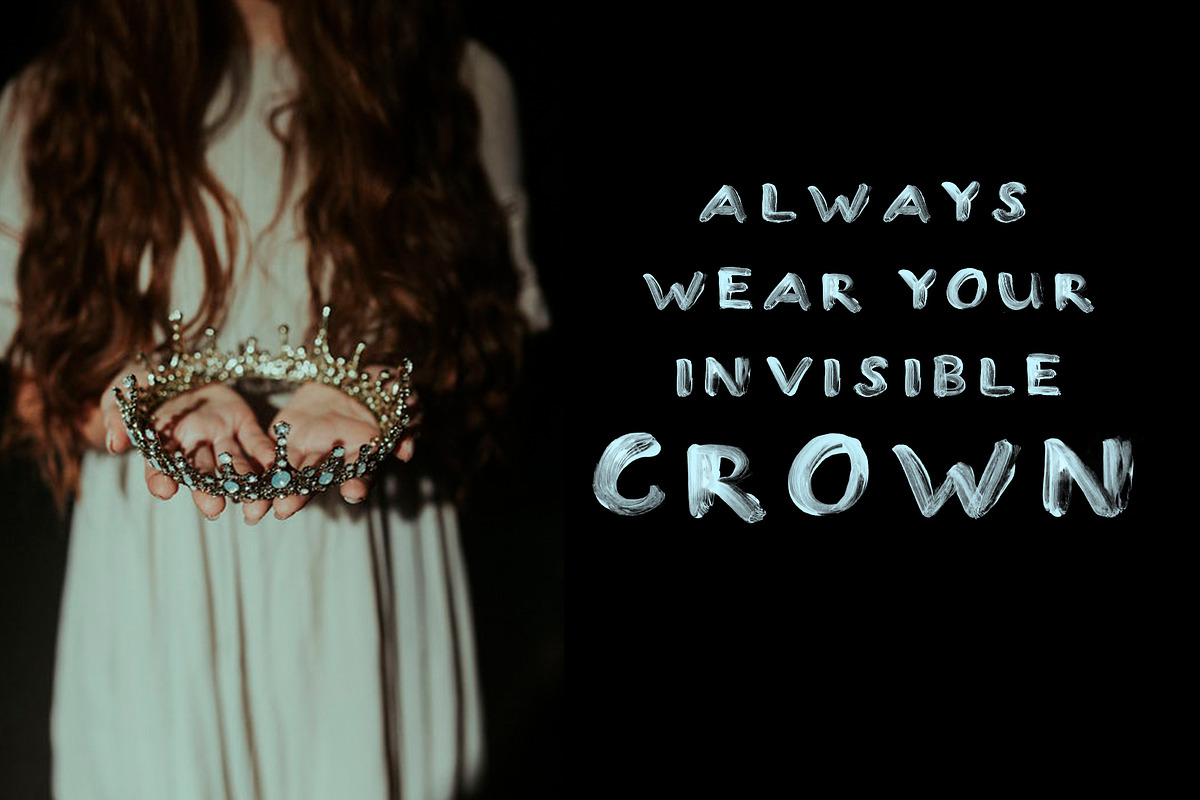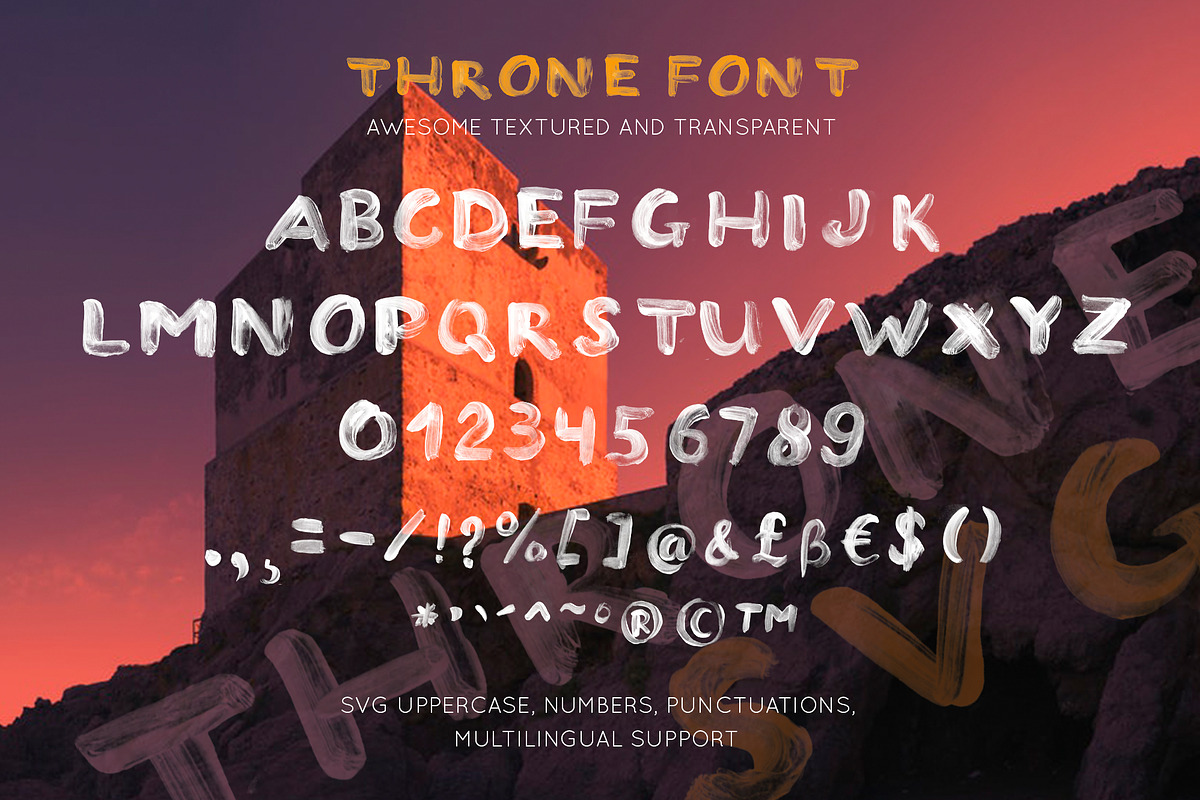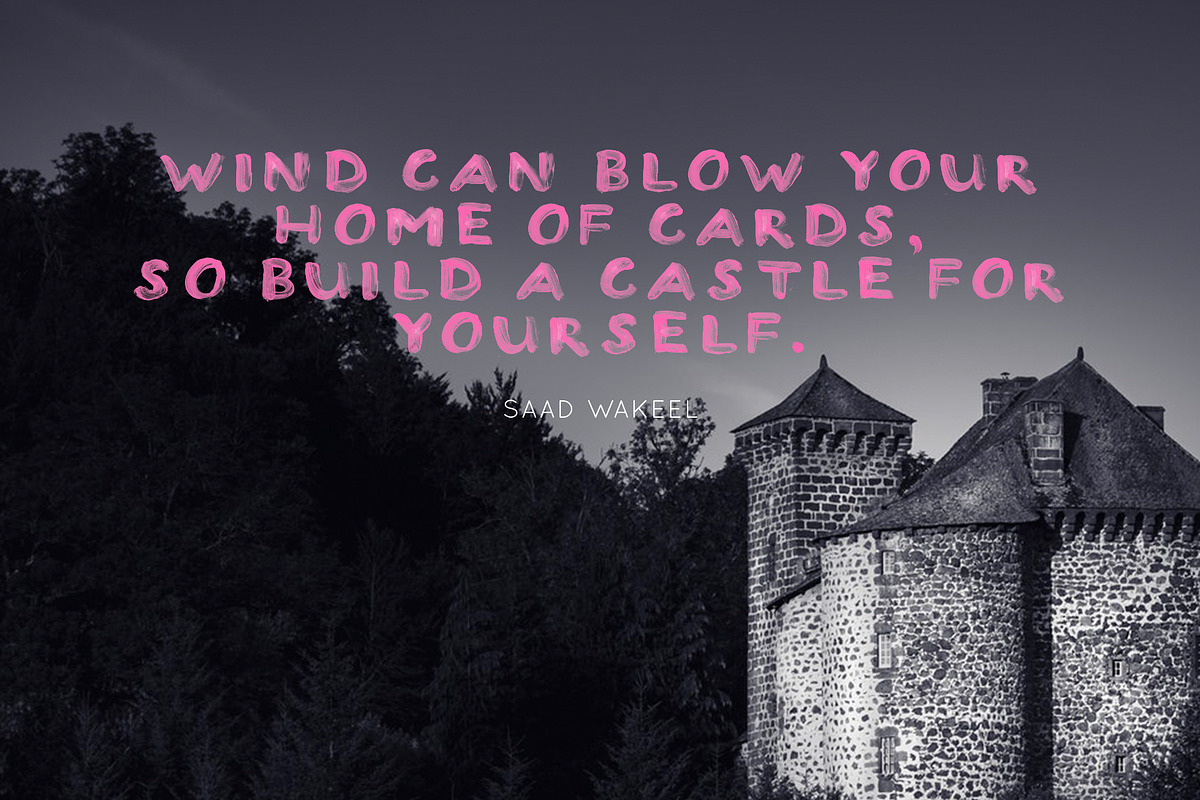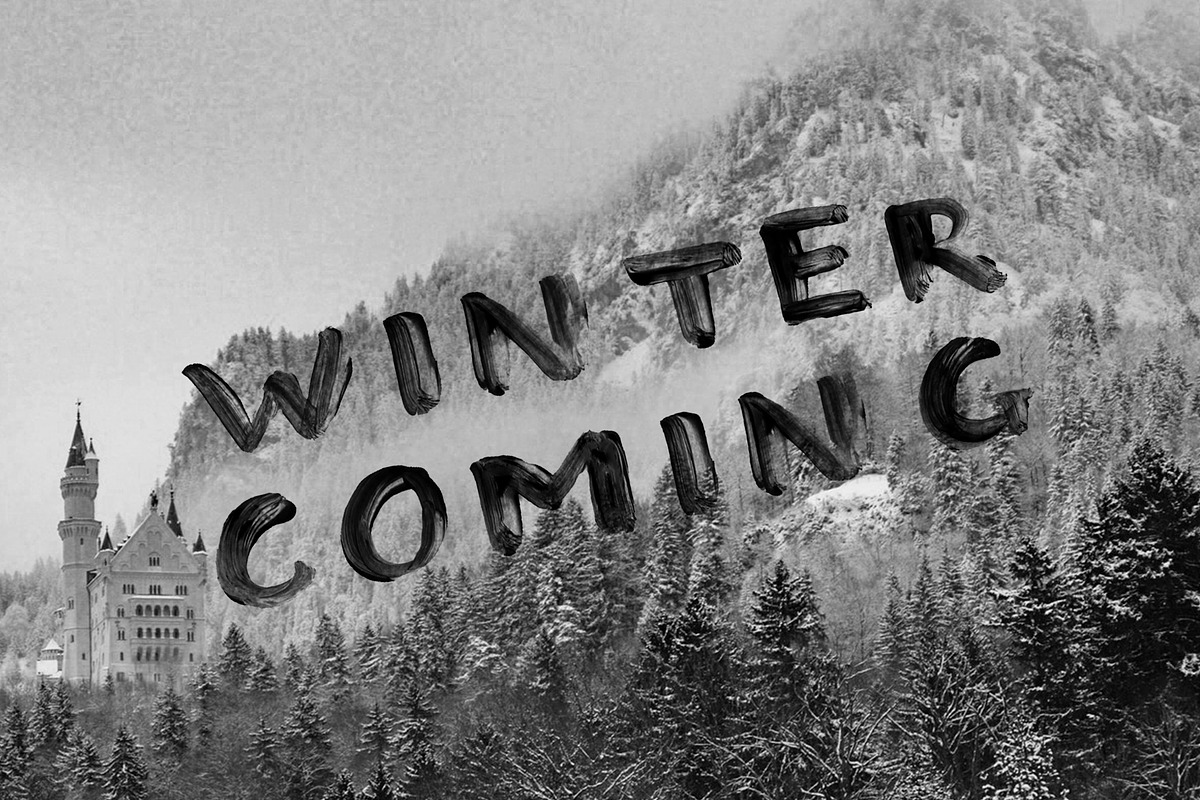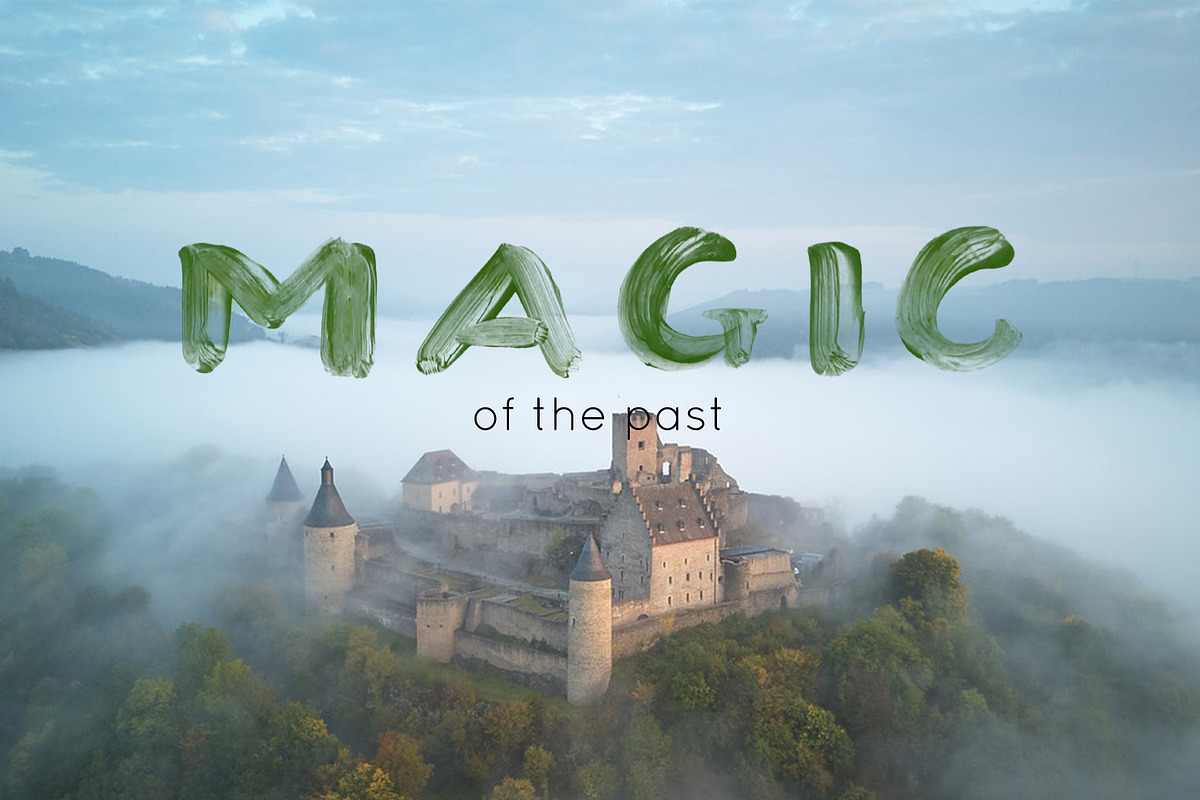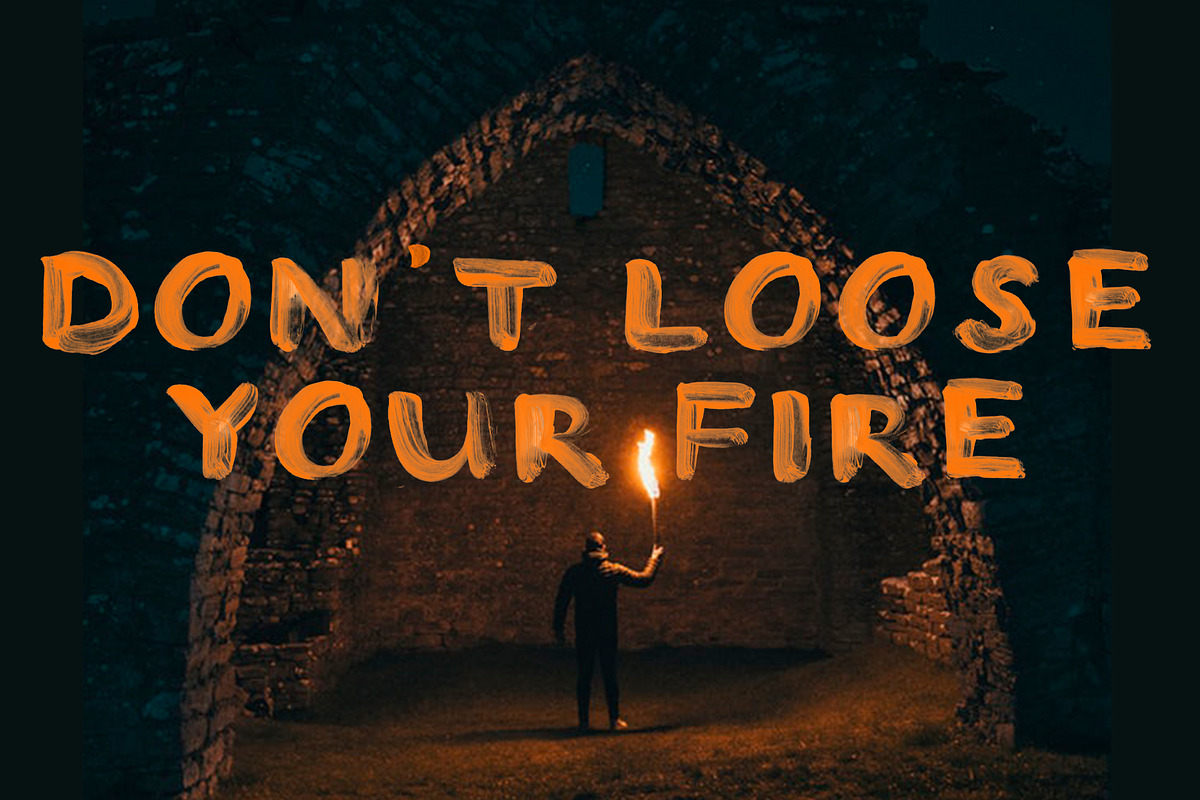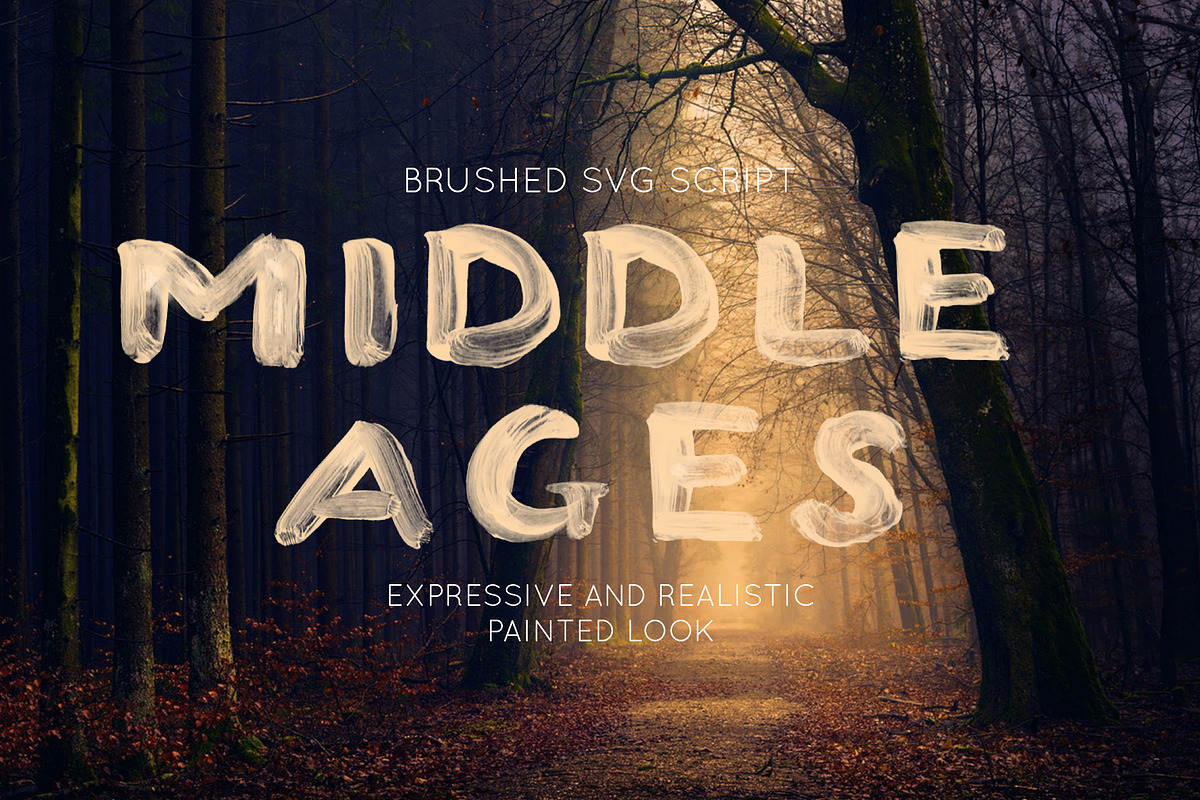
THRONE - SVG and regular OTF font
THRONE - SVG and regular OTF font collection.
Are you impressed with medieval times like me after watching The Game of Thrones? So let me to share all impressions and introduce my new SVG font in Middle Ages style to reflect all mystery and magic.
THRONE is an unique collection of ultra-textured and transparent SVG and regular paintbrush font. This font will help you to make your projects trully hand-painted realistic and natural. Regular Opentype version is also included if you need vector version.
THRONE SVG and Regular font includes uppercase letters, numbers, punctuations and multilingual support.